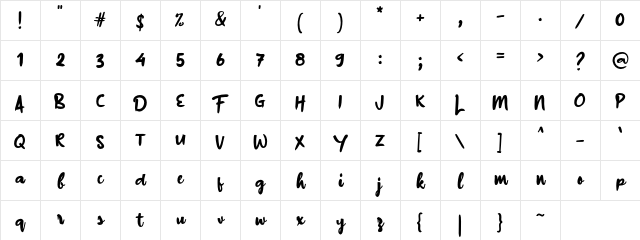
Complete a Buster Down Regular glyph index. Displaying only characters natively supported by a Buster Down Regular font.
a Buster Down is a composed and adaptable typeface that performs quietly and consistently across a wide range of design contexts.